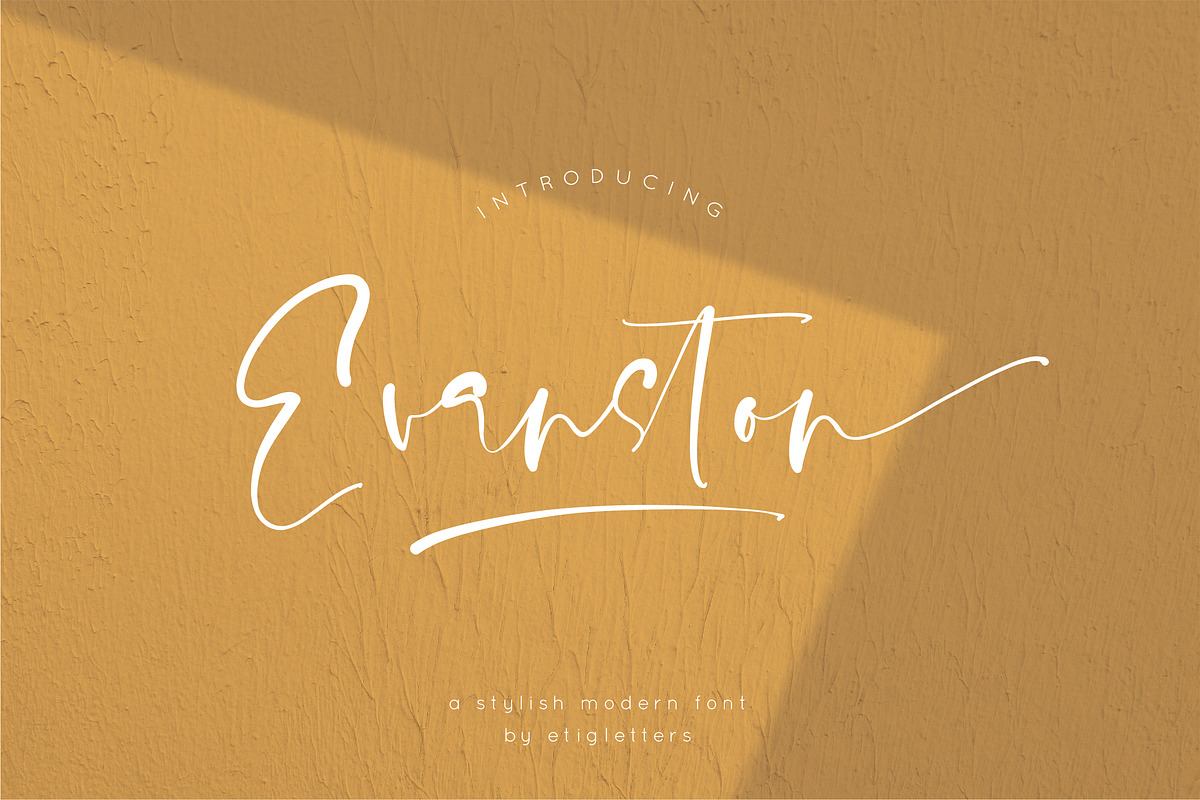
Evanston - Stylish Modern Font Free Download
Evanston - Stylish Modern Font Free Download is the perfect choice for designers looking for a sleek and contemporary font. With its clean lines and modern aesthetic, this font adds sophistication and style to any project. Whether you're designing websites, logos, or promotional materials, Evanston delivers a polished look that captures attention and elevates your designs.
Evanston - Stylish Modern Font Free Download comes in multiple weights, offering flexibility in your creative projects. Its bold yet minimalistic design makes it ideal for both print and digital media. From branding to headlines and beyond, this font helps your message stand out while maintaining a contemporary feel.